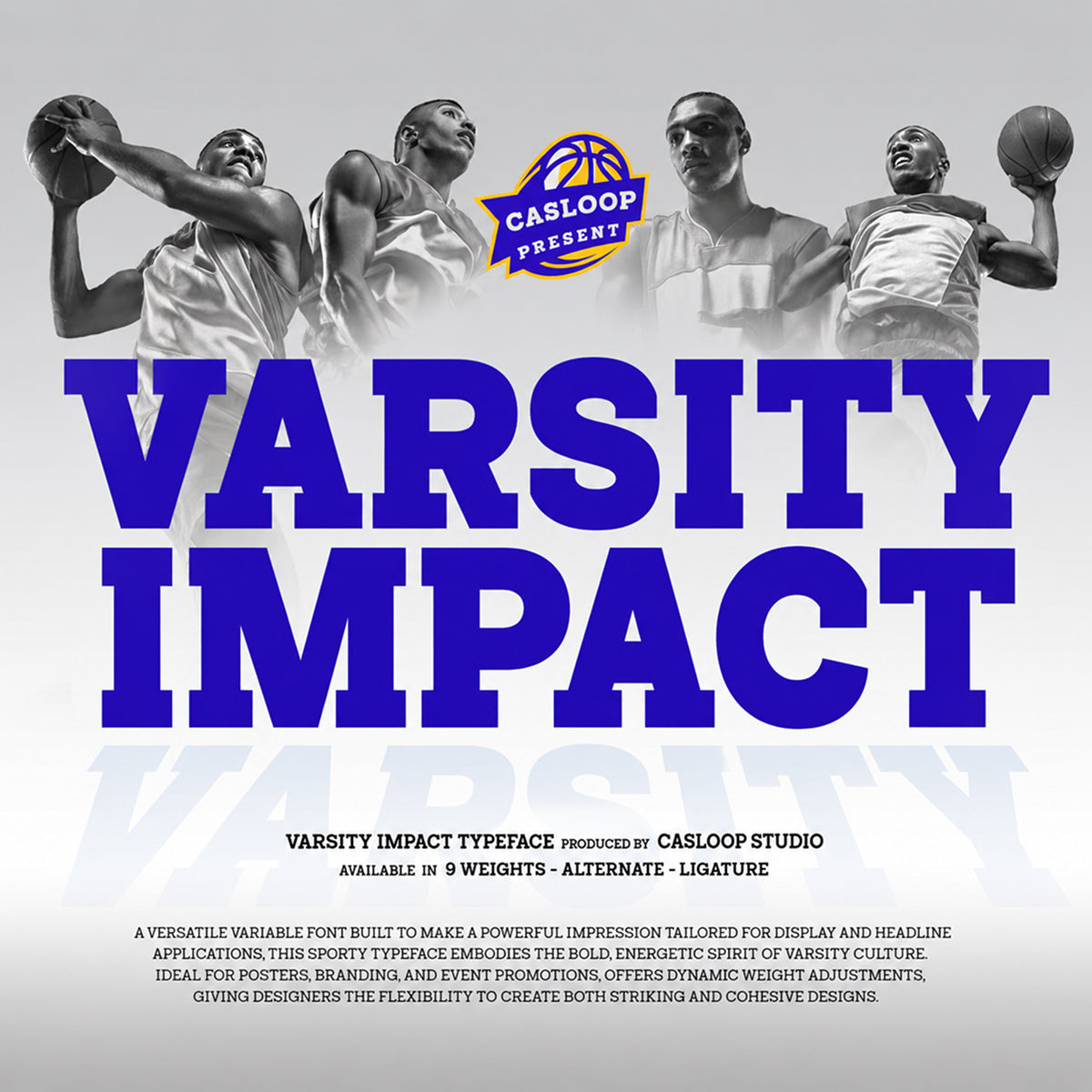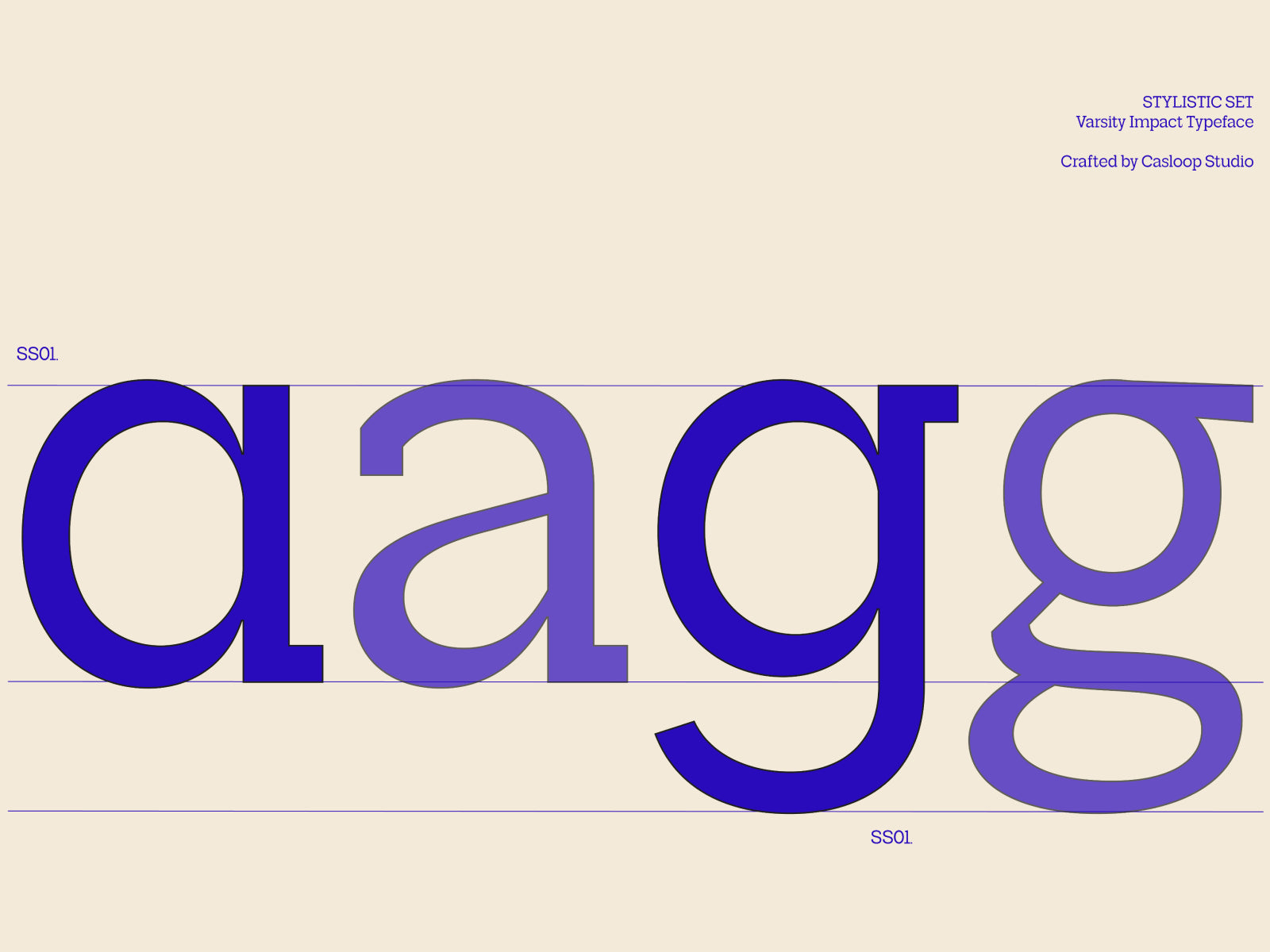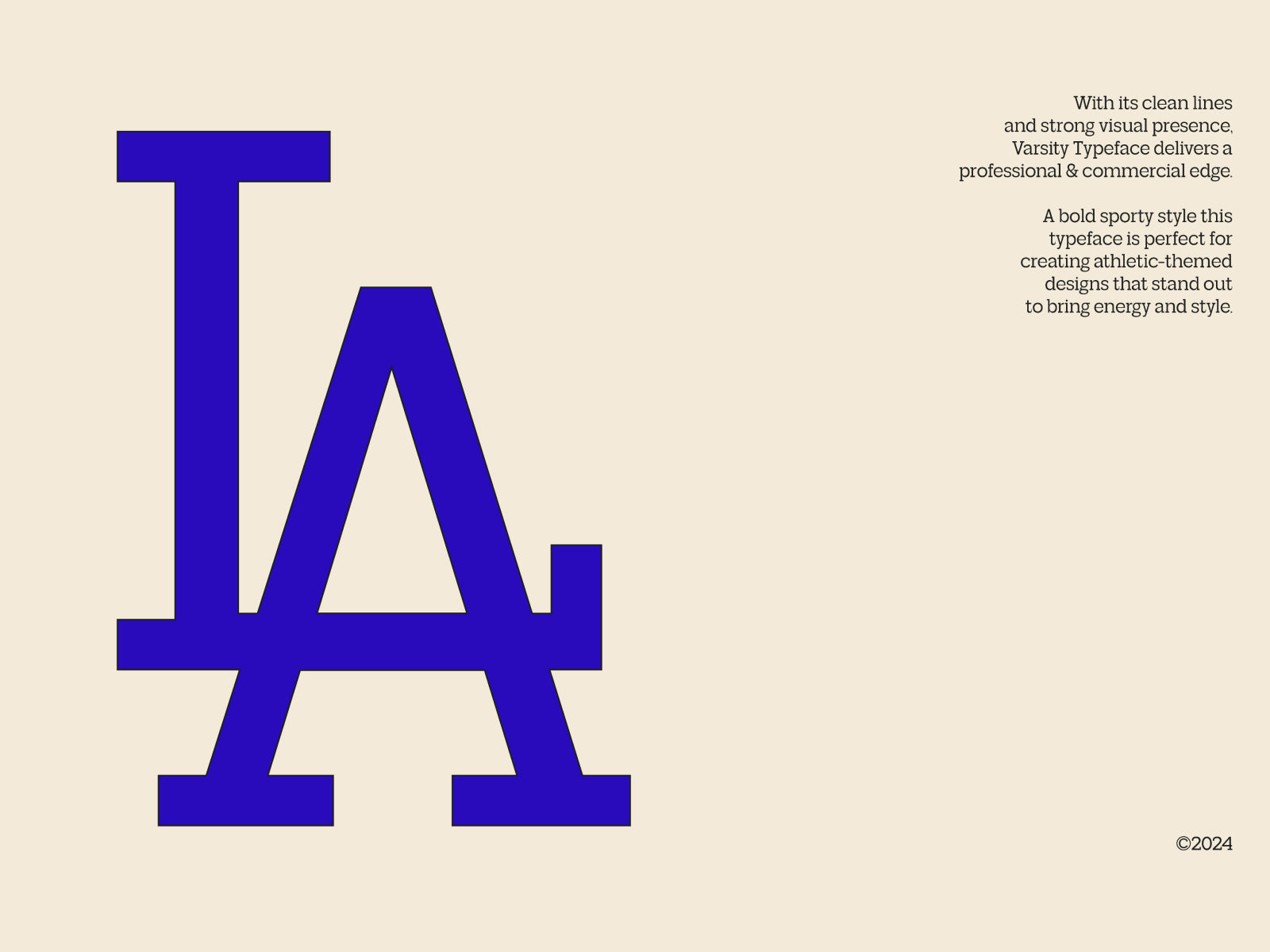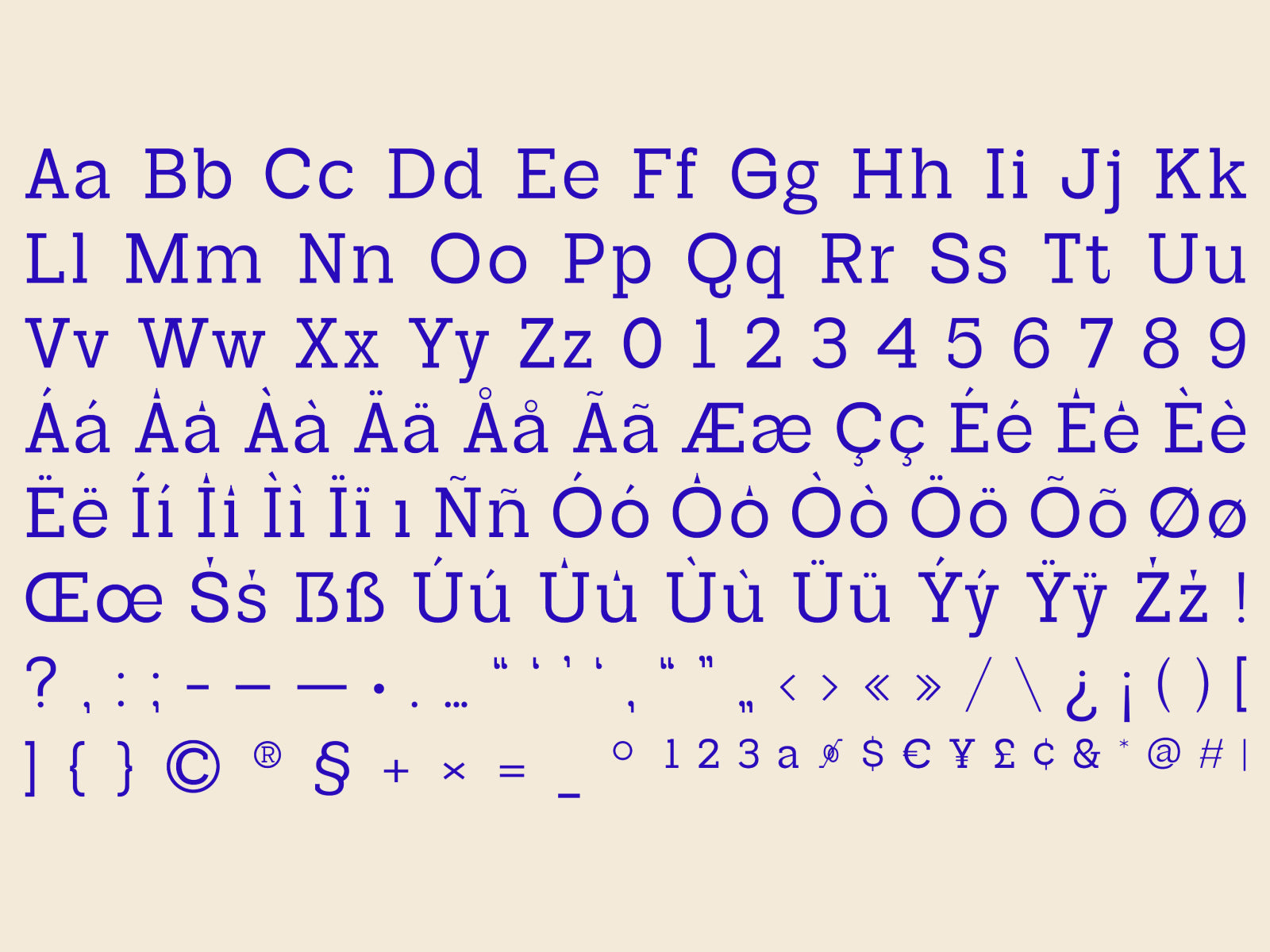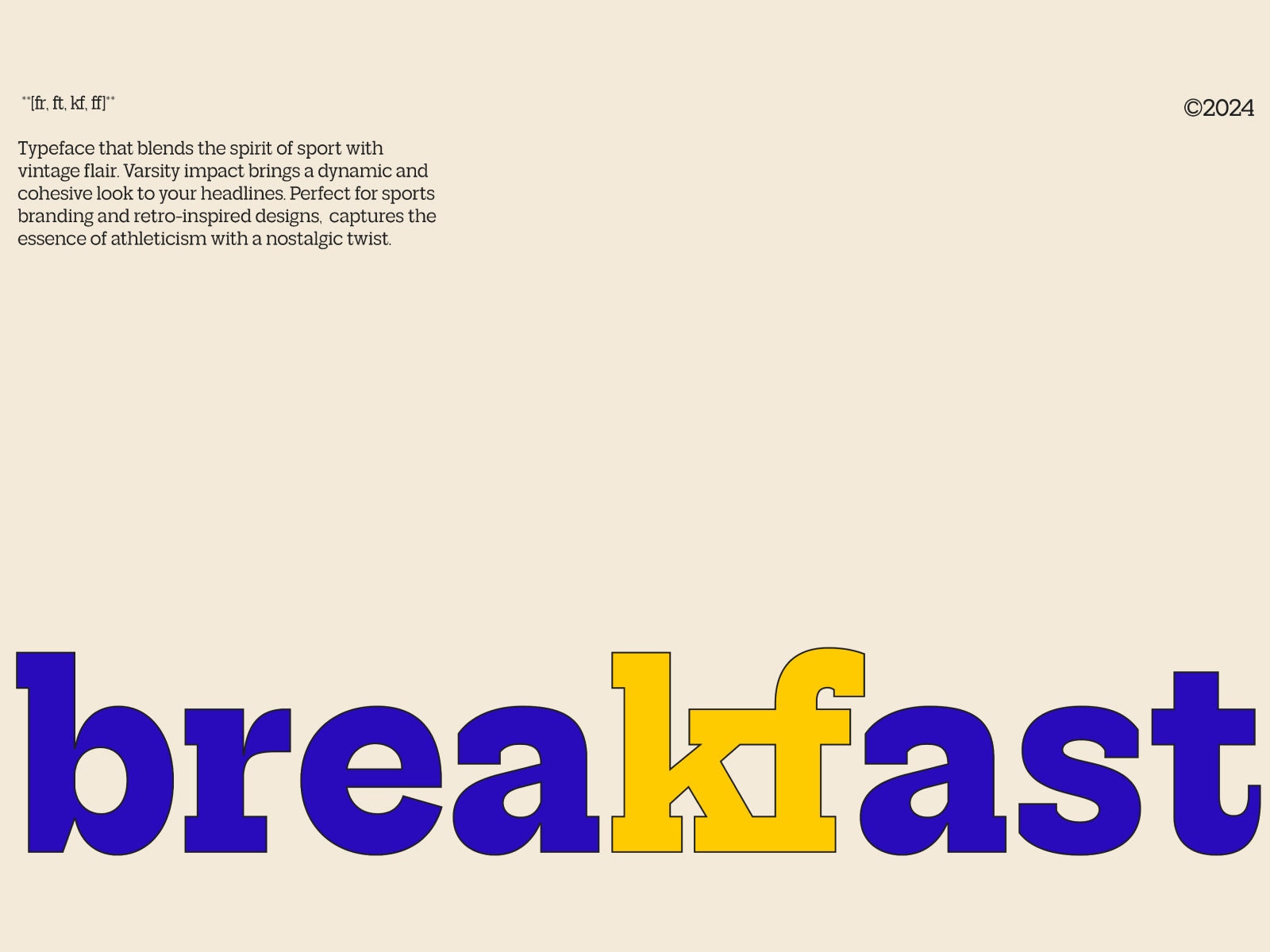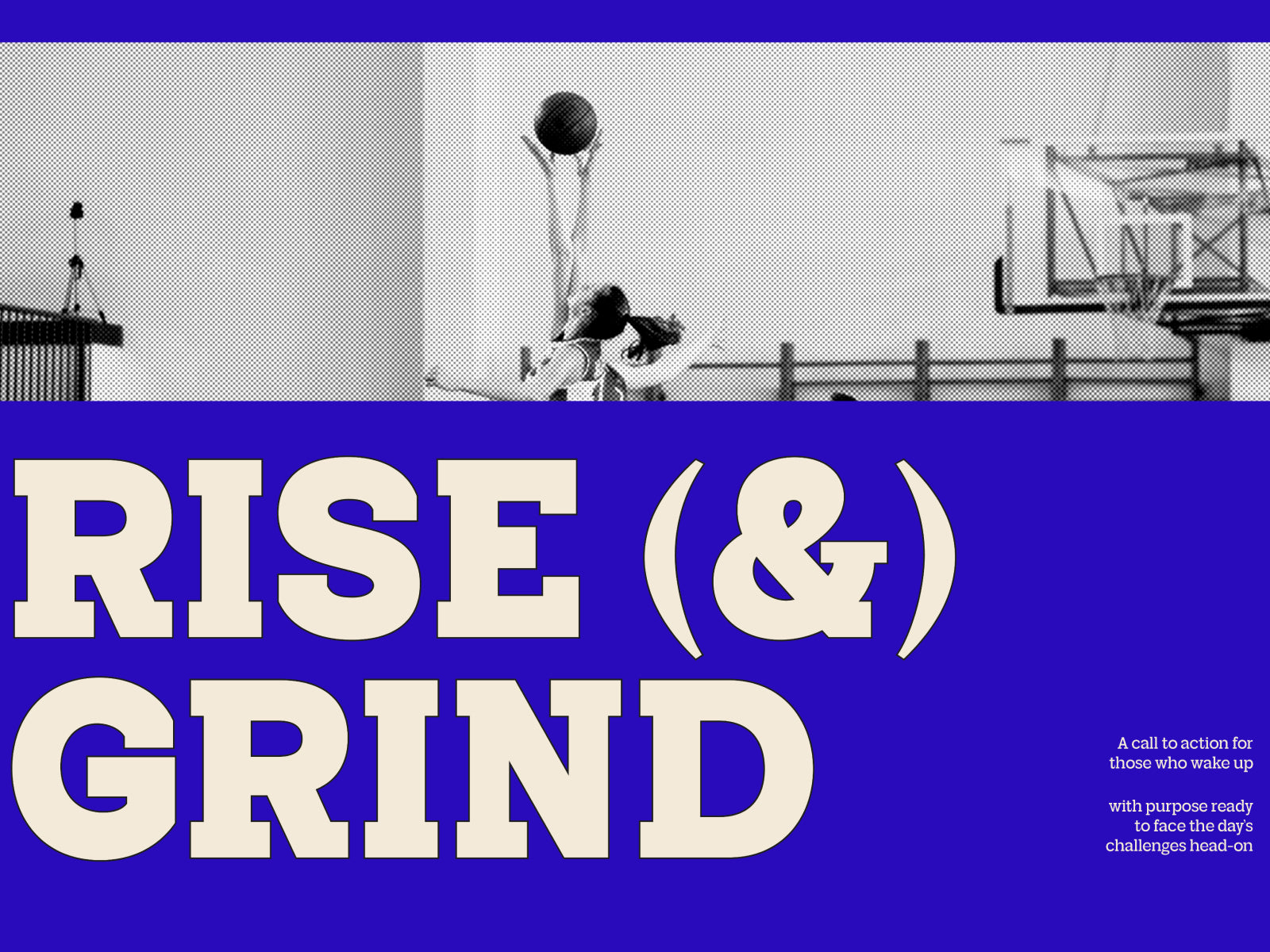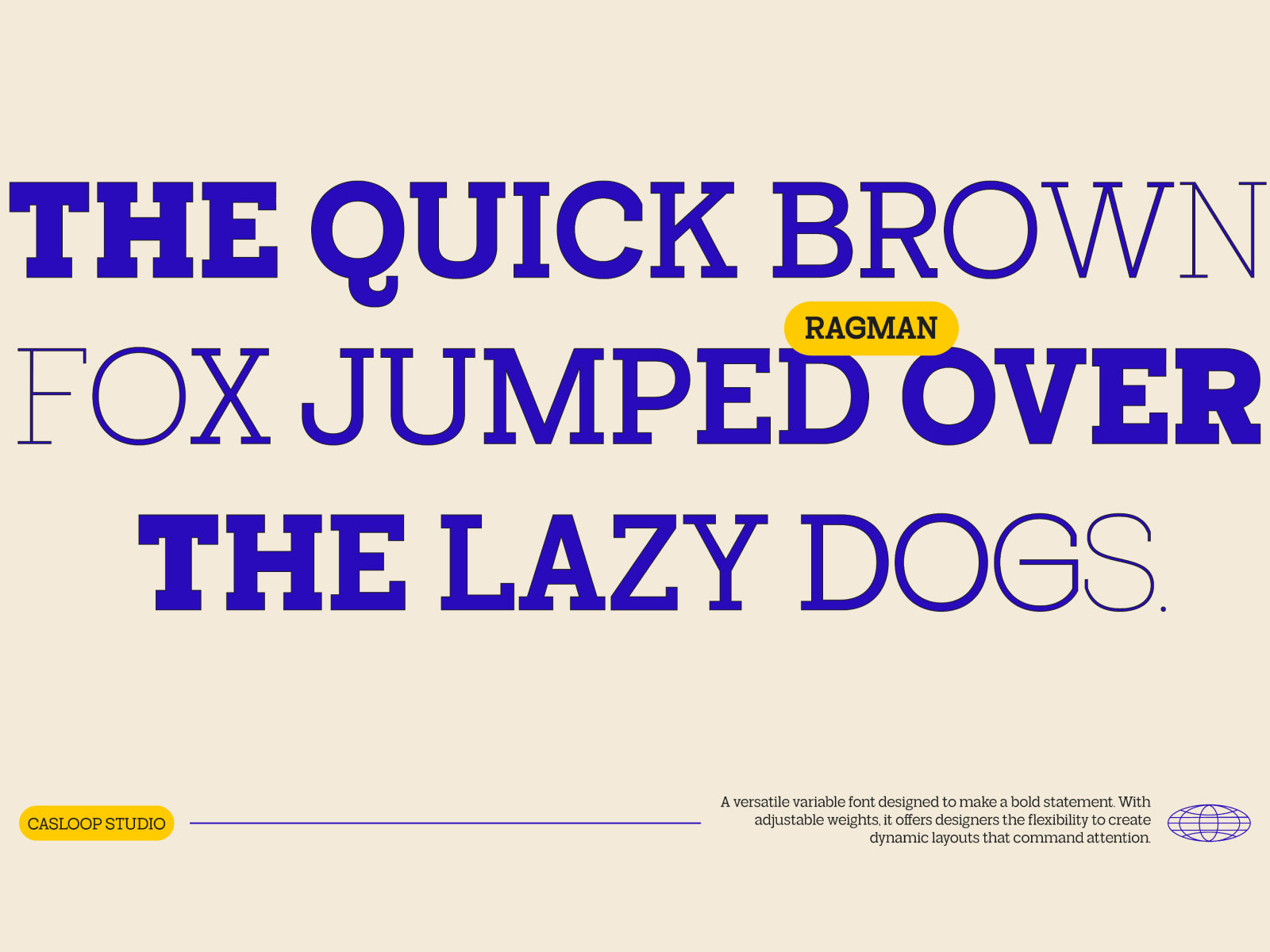
Varsity Impact - Sport Fonts
Introducing Varsity Impact, the quintessential font for those who crave a blend of modern flair and dynamic versatility. This Sport Slab Serif typeface stands out with its distinctive, contemporary design, perfect for everything from university sports branding to athletic apparel.
Varsity Impact offers a premium touch with its strong, legible characters, ensuring your text makes a memorable impression. Whether you're designing campus posters, digital media visuals, or even packaging for automotive gear, this font delivers a quirky yet refined aesthetic that commands attention.
Its unique combination of bold and blocky elements makes it ideal for a range of uses—from sporty jerseys and college branding to construction signage and motion graphics.
Varsity Impact is a Sport Slab Serif typeface designed for modern versatility, featuring strong and legible characters. It supports multiple languages, making it suitable for a wide range of applications in sports branding and beyond.